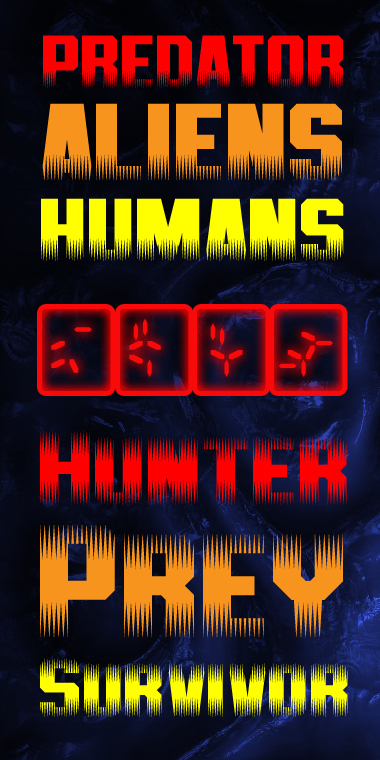
• It's been a while since I released a movie themed font. This was a good excuse to experiment with 1:16 angles to recreate the original Predator movie logo. Predatoric was tricky to create as well as manage in regards to the fades on curves and angles. Small Caps were created afterward. Predatoric 2 came about by accident and looked even more interesting. Digits from the Predator self=destruct sequence are housed in the [, ], {, and }.
The Predator font already exists in the free fonts world. It's called "Invisible Killer" by WhoAmI Design, you can find it at Dafont.com. The suspense is intact : will you be top picked for this new copy ?
Nice work gene, but you have to tell how you got 1:16 angles!
@neurone_error: Since the movie is over 20 years old, I thought someone would have already created a version of it. I didn't know about it though, so thanks for the info. Comparing both now, I do have small caps added as well as the self destruct digits. Predatoric 2 also offers a different variation of the font. Anyway, this fontstruction is basically an exercise in functionally utilizing the steepest FS2.0 angle available.
@aphoria: Thanks. The 1:16 angle can be achieved as follows:
1. Create a tall 1:8 angle set in 1:1 mode.
2. Separate each brick vertically by one grid space.
3. Switch the filter setting to 1:2. The stretching allows the additional angle to be created which is only available vertically.
Conversely, a 2:1 filter setting allows horizontal 16:1 angles to be created.
Ahhh, filters. I hadn't considered that...duh!
I thought maybe you had your hands on FontStruct 2.5. ;^)
@neurone_error & @geneus1:
Nice one Gene - love the imaginative use of filters - all I need to do now is get my head around it :)
A great take on an iconic design. 10/10
It looks like some creature clawed at the bottom of your font.